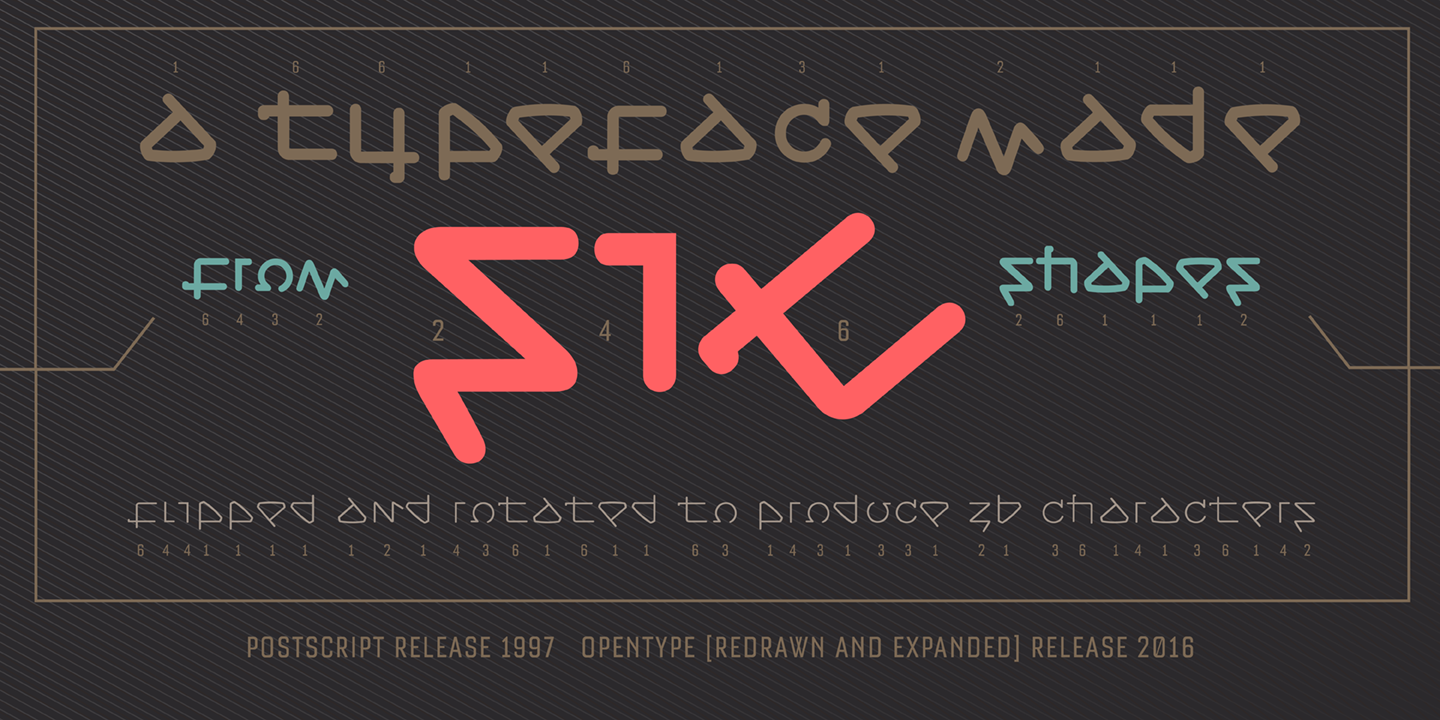
Prozac Font is excellent for creative agency branding, artistic poster designs, experimental typography projects, music album covers, fashion campaigns, contemporary art exhibitions, indie magazine layouts, graphic design portfolios, modern web interfaces, and avant-garde advertising materials.
What makes Prozac Font exciting is its bold, unconventional design that challenges traditional typography boundaries while maintaining striking visual impact and artistic expression. This typeface features distinctive letterforms with unique character details that create memorable brand recognition and creative differentiation. The font's artistic personality and experimental nature make it perfect for brands seeking to project innovation, creativity, and cutting-edge design thinking in their communications.
Prozac Font family includes various stylistic alternatives and character variations that enhance its creative potential while maintaining design coherence. The font features unique ligatures, alternative characters, and special glyphs that provide designers with extensive creative flexibility for artistic applications.
Creative professionals and design agencies consistently select Prozac Font Free Download for projects requiring distinctive visual identity and artistic flair. The font's experimental character excels in applications where conventional typography falls short, making it ideal for creative portfolios, artistic campaigns, and innovative brand identities. Whether you're designing for creative industries, artistic ventures, or experimental projects, this distinctive typeface delivers the creative edge and memorable personality that sets your work apart from conventional design approaches.